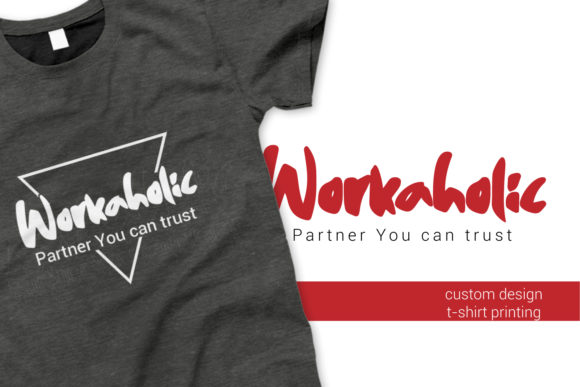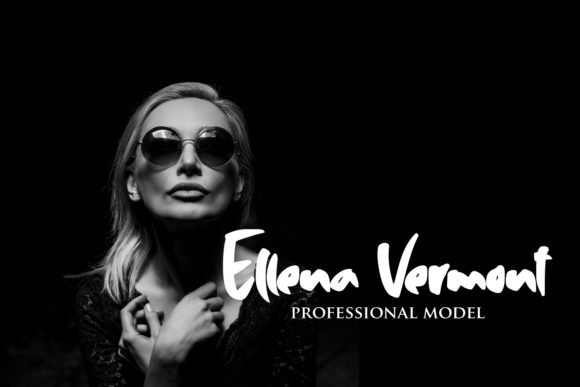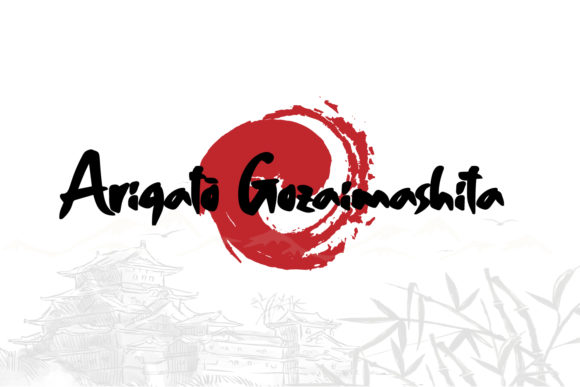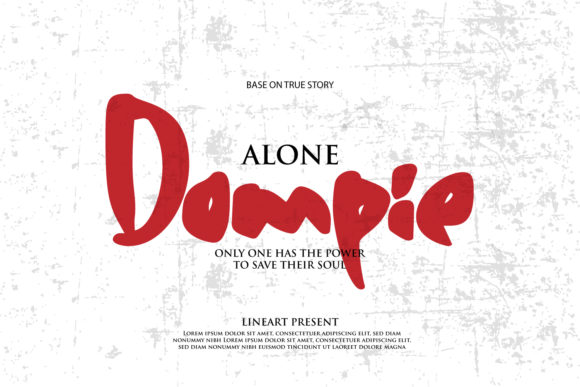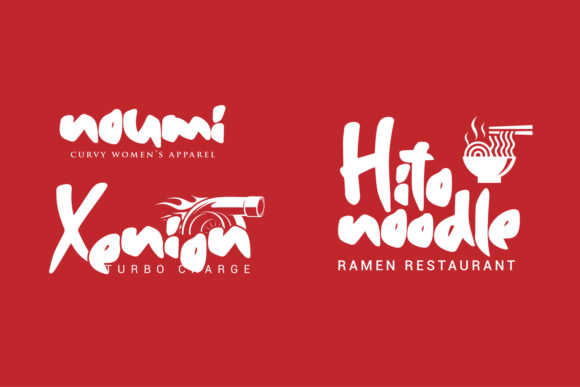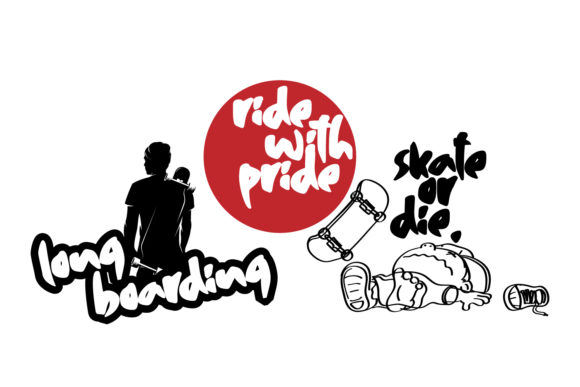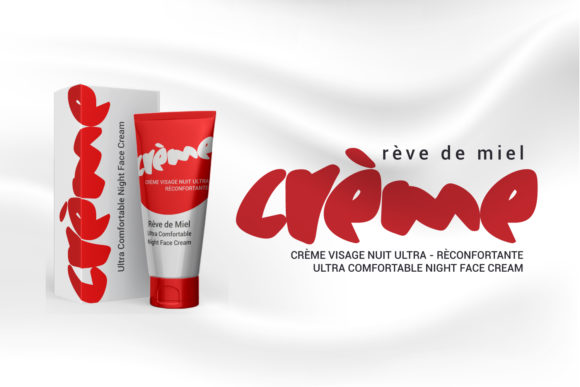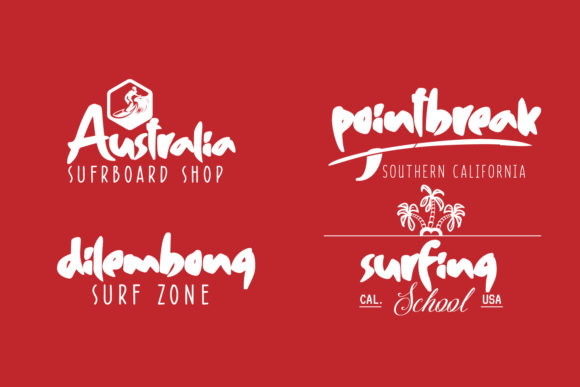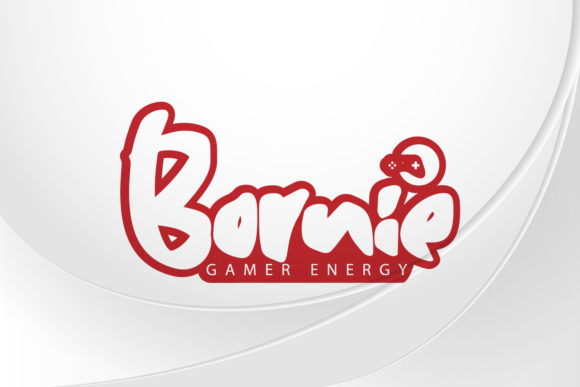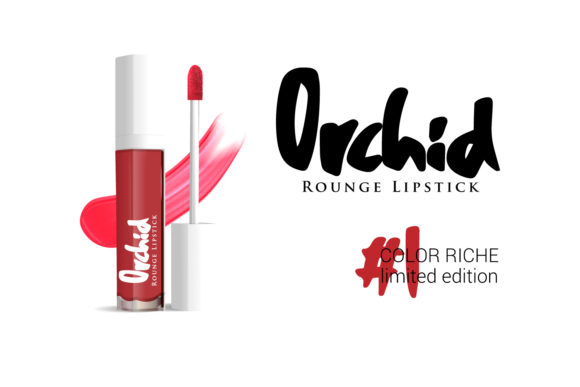
Hiroshima Font
About Hiroshima Font
Hiroshima is a bold handwritten font, carefully handcrafted to become a true favorite. Its casual charm makes it appear wonderfully down-to-earth, readable and, ultimately, incredibly versatile. This fantastic font is best suited for headlines of all sizes, as well as for blocks of text that have both maximum and minimum variations. Whether it’s for web, print, moving images or anything else – Hiroshima will look spectacular.